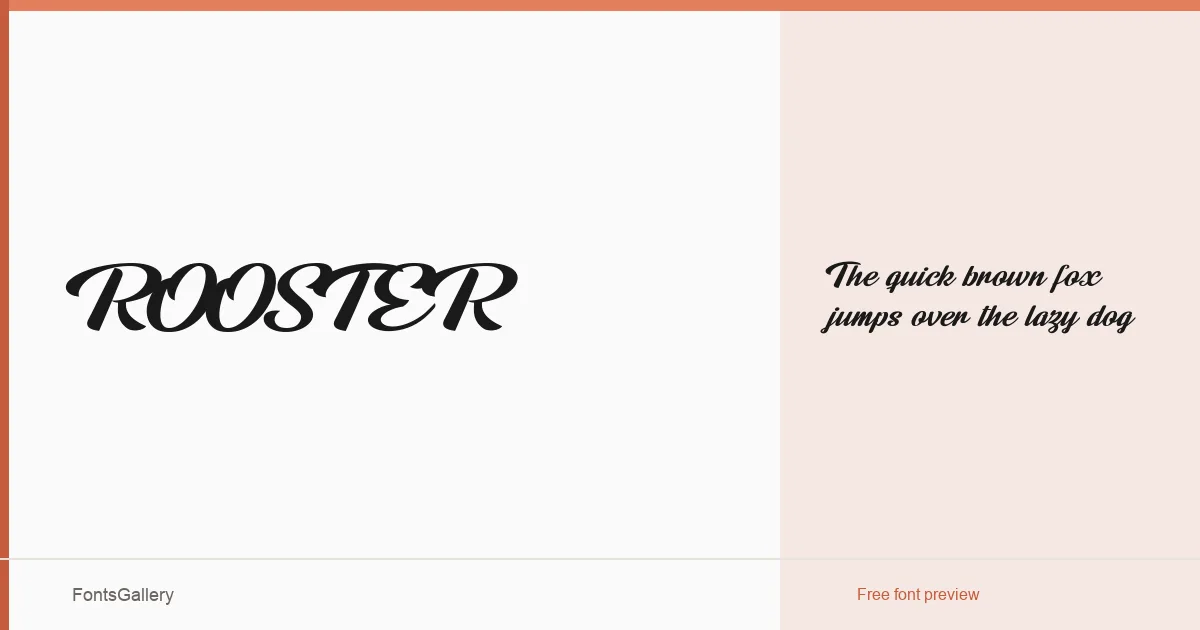
About ROOSTER Font
ROOSTER is a bold script typeface designed by Billy Argel, released through the Billy Argel foundry. It carries a strong vintage character that makes it instantly recognizable and full of personality. With its classic sensibility and commanding presence, ROOSTER is a typeface built to make a statement.
ROOSTER features the flowing, expressive letterforms typical of the script category, enhanced by a bold weight that gives it a vintage and classic appeal. The confident strokes and dynamic curves evoke a timeless quality reminiscent of classic signage and hand-lettered design traditions. Its strong visual impact ensures it commands attention while retaining an elegant, organic charm.
ROOSTER is ideally suited for logos, posters, branding projects, social media graphics, and t-shirt designs where a bold, vintage aesthetic is desired. Its expressive character makes it especially effective for brands and creatives looking to evoke a classic, handcrafted feel. For a compelling contrast, ROOSTER pairs beautifully with Aresink for a cohesive vintage look, or with Helvetica for a clean, modern counterbalance.